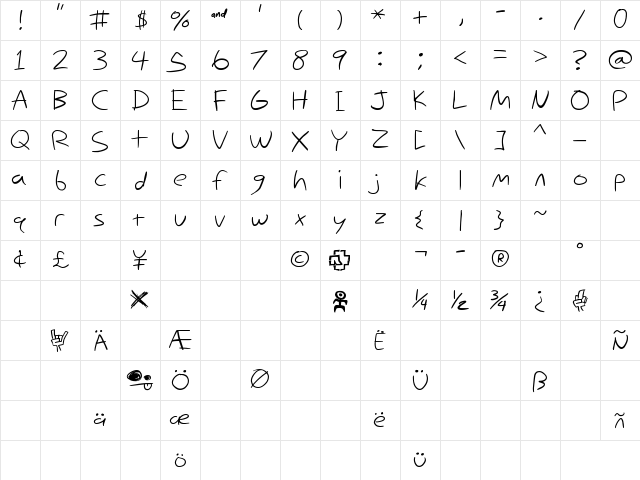
Nihilschiz Handwriting Regular
Design Context for Nihilschiz Handwriting Typeface
Nihilschiz Handwriting flows with the natural rhythm of handwritten lettering, making it ideal for designs that call for warmth and personal expression.
Font Pairing: Combine Nihilschiz Handwriting with a simple geometric sans for maximum contrast — the tension between flowing curves and clean structure is a classic typographic pairing.
Pro Tip: Use Nihilschiz Handwriting for short runs of text — names, titles, or taglines. Extended body copy in script faces tires the eye quickly.